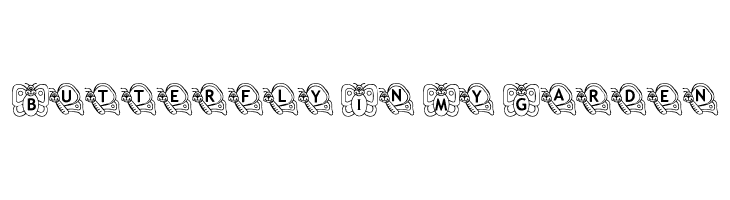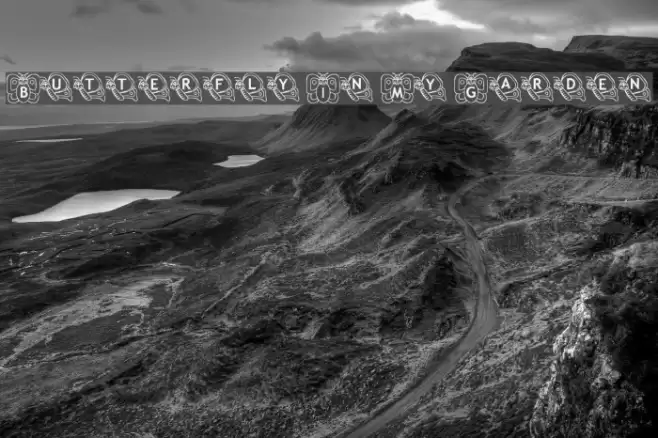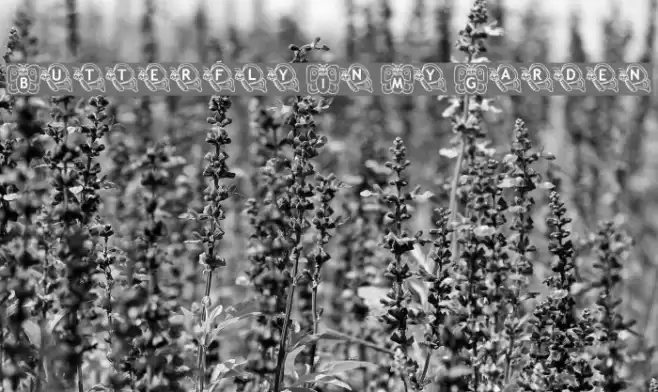
Butterfly In My Garden Font
Butterfly In My Garden Description
This whimsical and decorative font features each character encased within a butterfly design, creating a playful and unique aesthetic. The uppercase and lowercase letters, as well as numbers, are all integrated into the butterfly motif, making it ideal for projects that require a touch of nature or fantasy. The font maintains a consistent style across all characters, ensuring uniformity while still offering a distinct visual appeal. The special characters also follow the butterfly theme, adding to the cohesive design. This font is perfect for creative projects where a lighthearted and imaginative touch is desired.
| Proposed Projects | Ideal for children's books, greeting cards, playful branding, and nature-themed designs. |